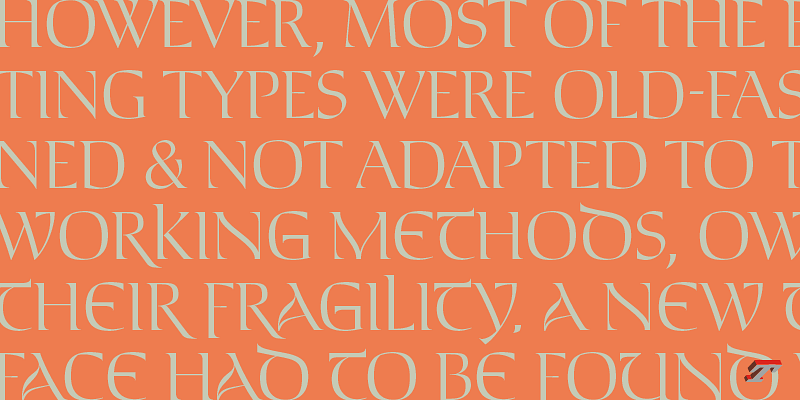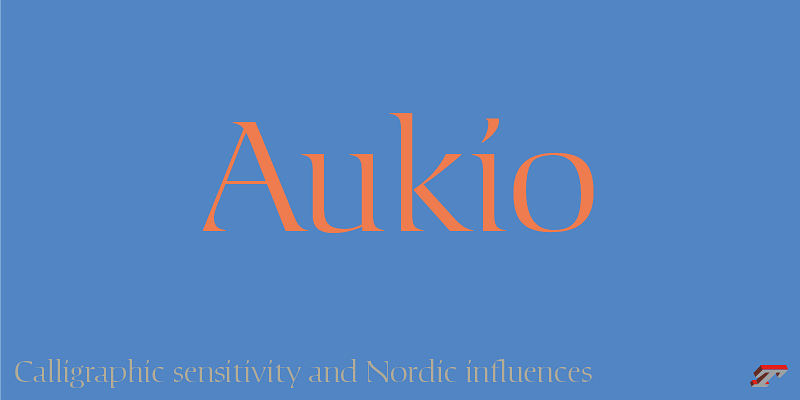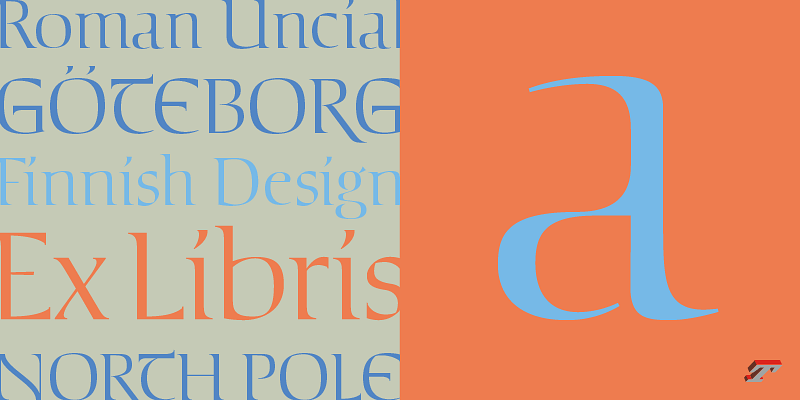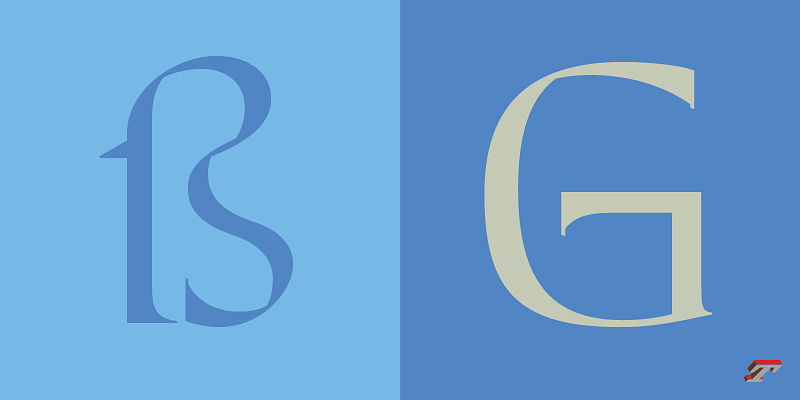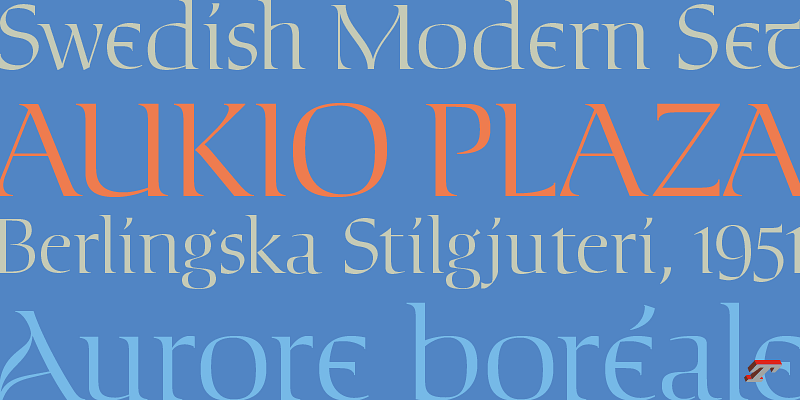
Aukio (means “square, angular” in Finnish) is a high-contrast display typeface with details inspired by the calligraphic practice of the Nordic countries. Its large squarish structure and angular inner shapes are a direct reference to this crafty and artistic world. Its digital drawing approach combined to its high contrast gives it a contemporary dimension for sensitive yet striking titles.
Calligraphic details have been preserved in the treatment of thin strokes and endings. As well in the shoulders and bowls connections which become slightly darker before joining the stems. On the other hand, the treatment of the verticals stems and horizontal crossbars is simplified by a geometric digital approach. This creates a visual contrast between manual and digital forms, which coexists and reveals different aspects of Aukio at different scales.
The aim behind the Aukio’s design was to pay homage at sources in a more contemporary design approach that would also respond to the graphic challenge required for today’s titles.